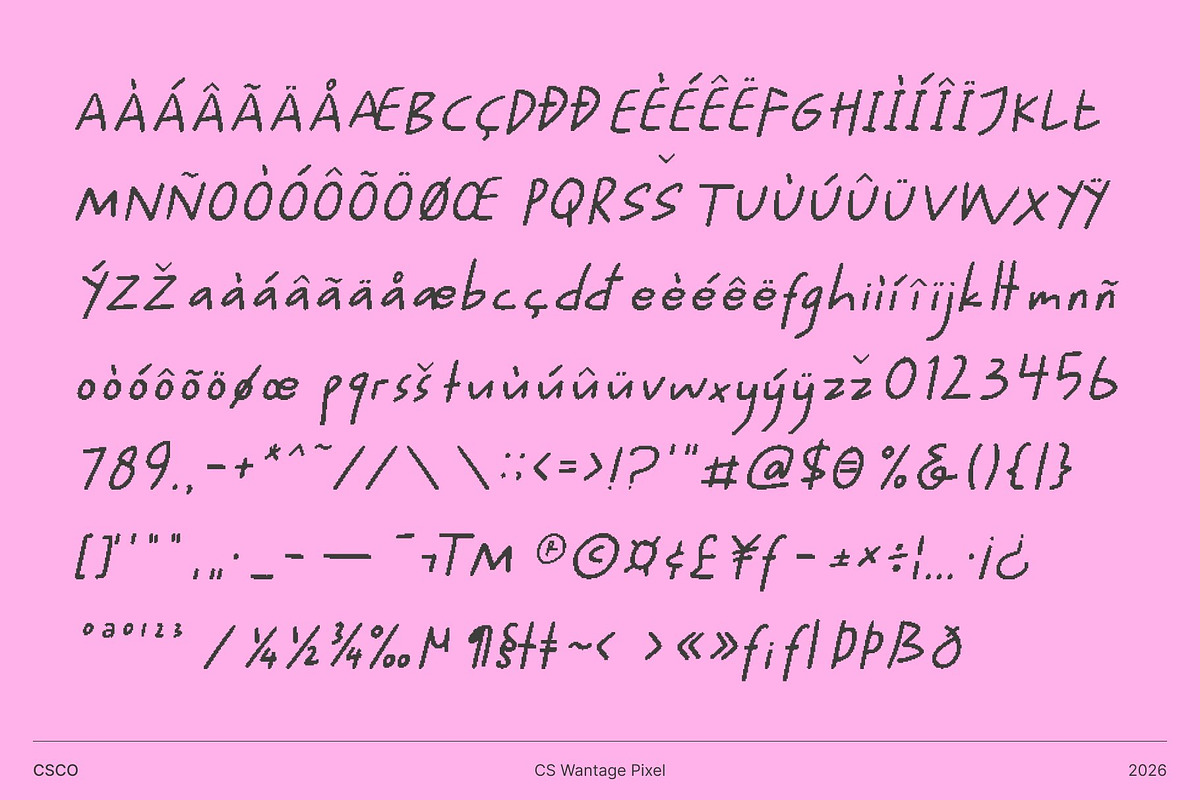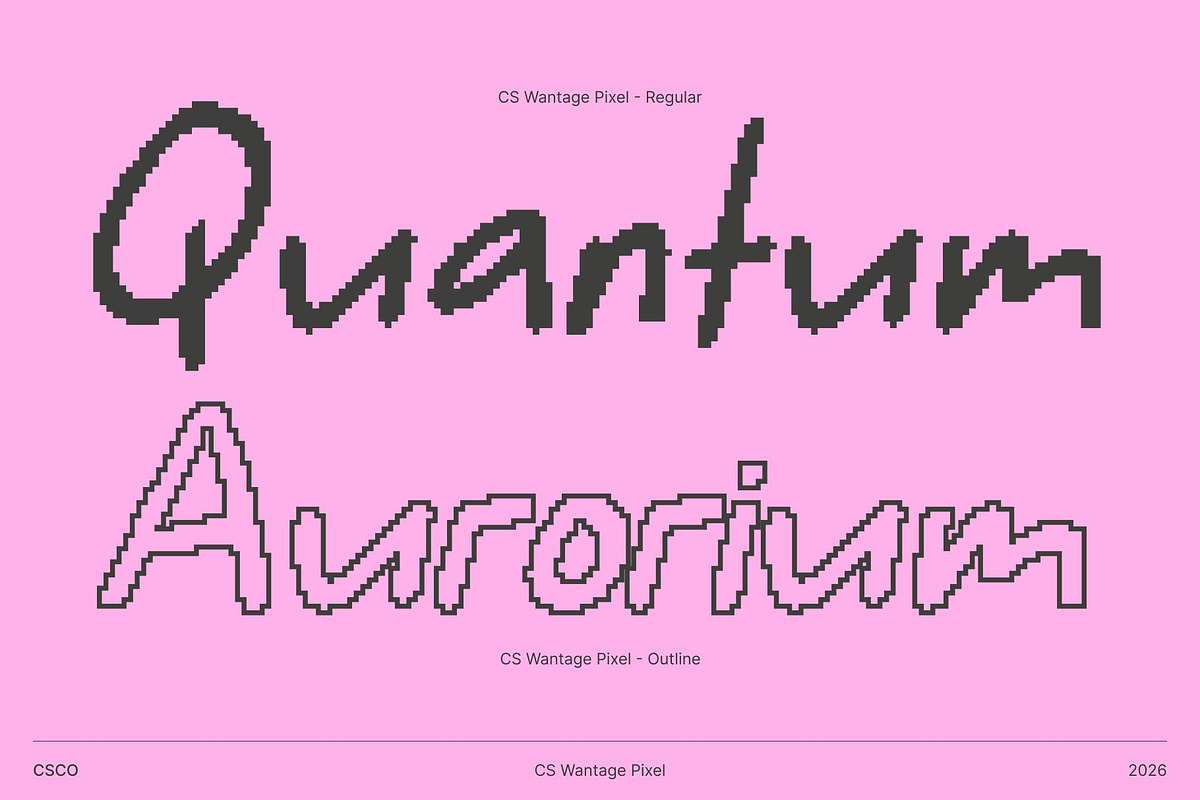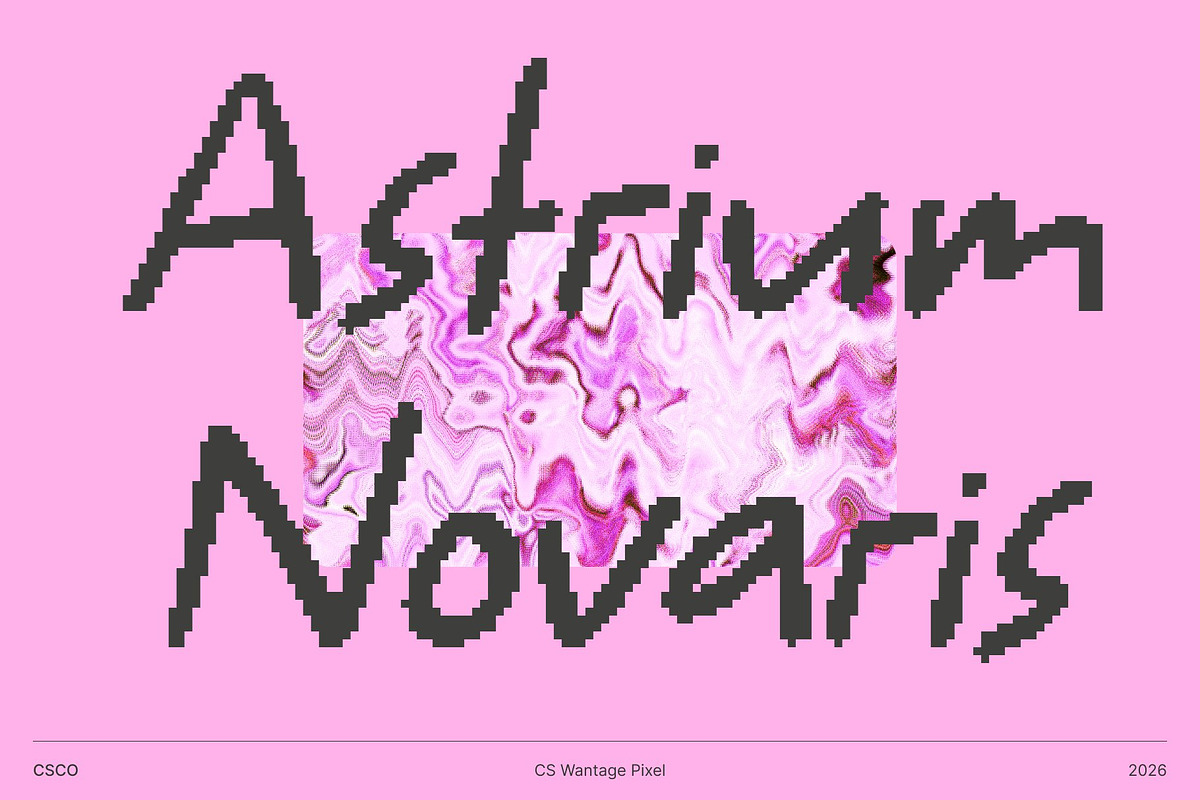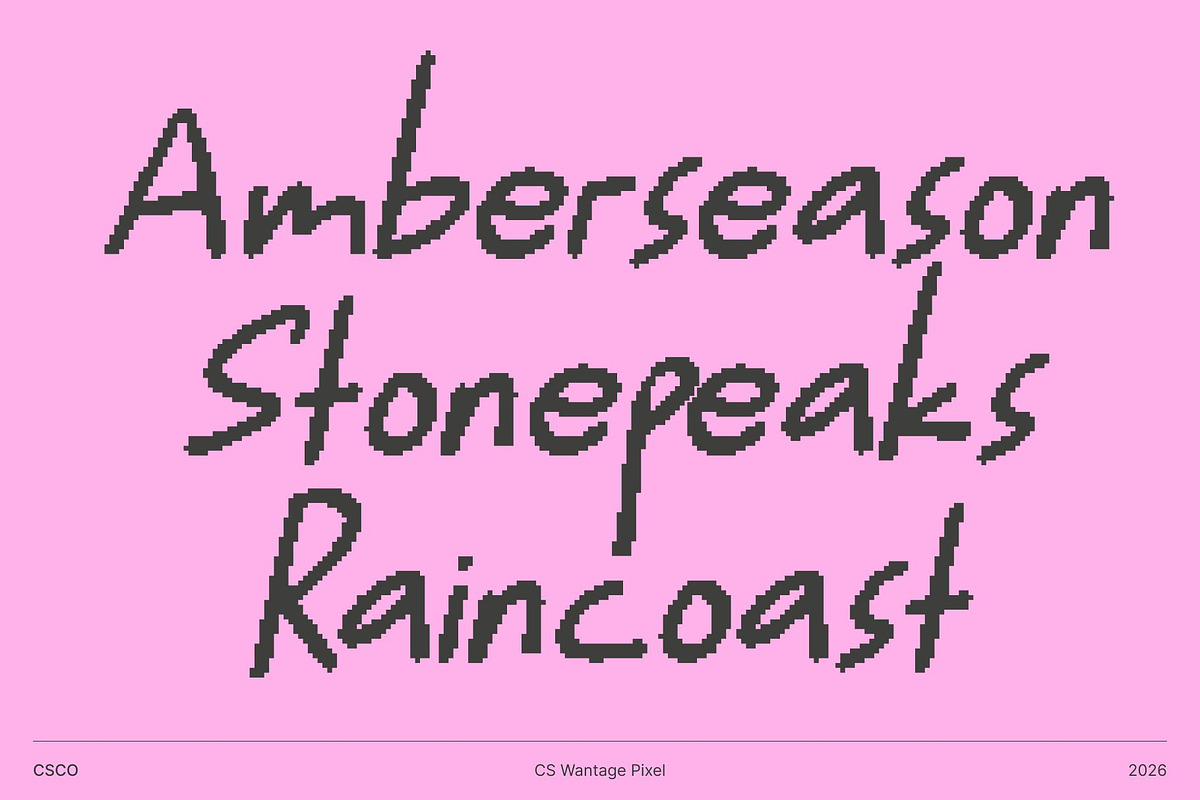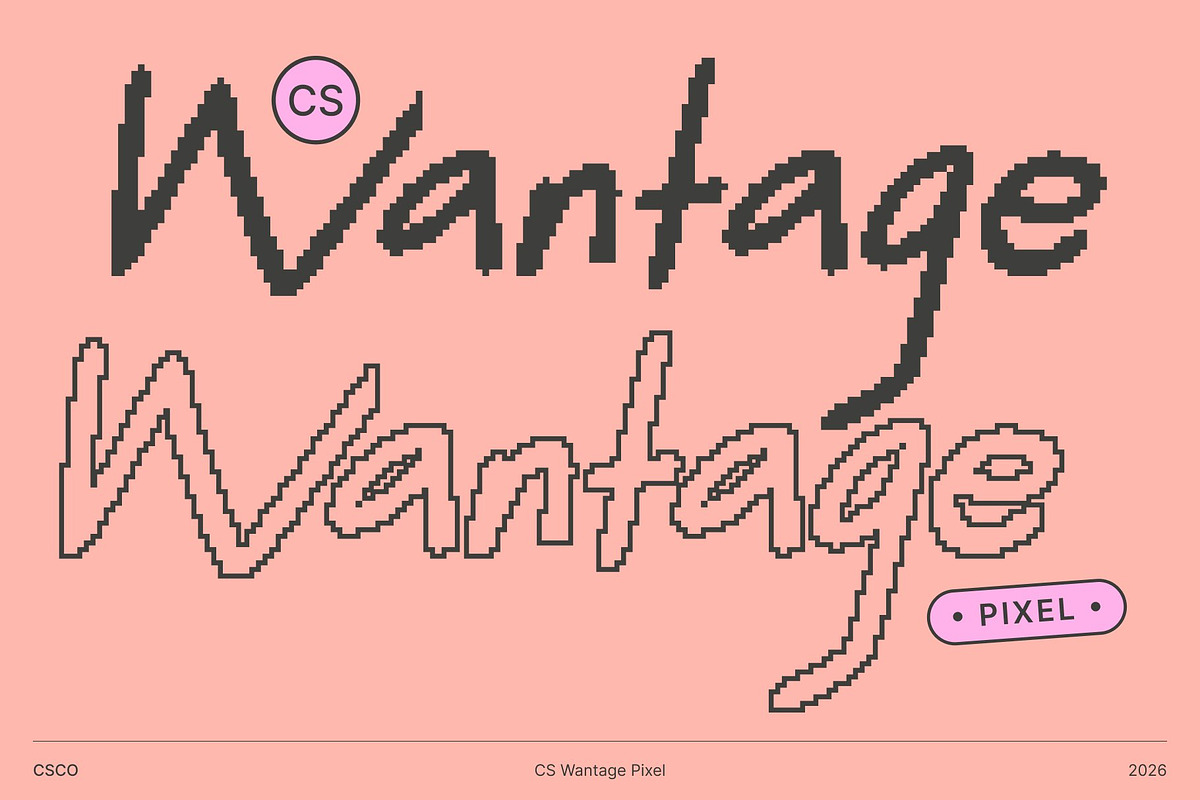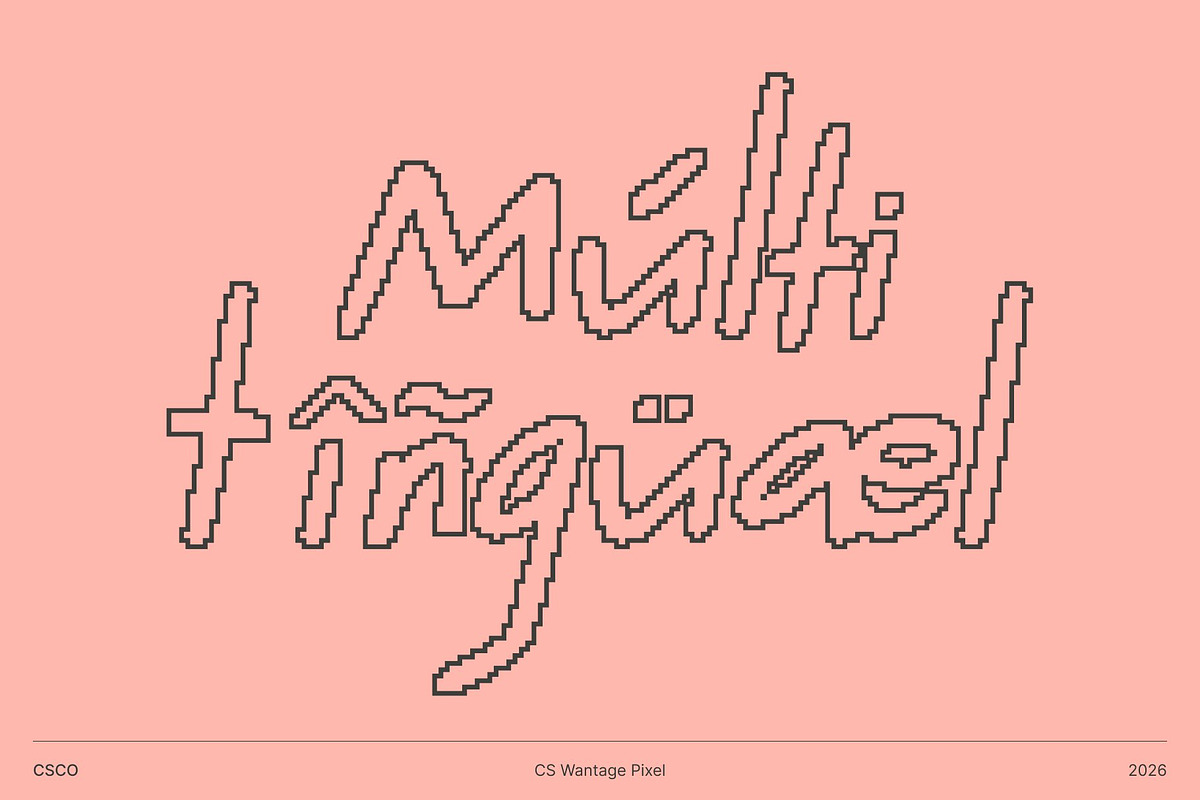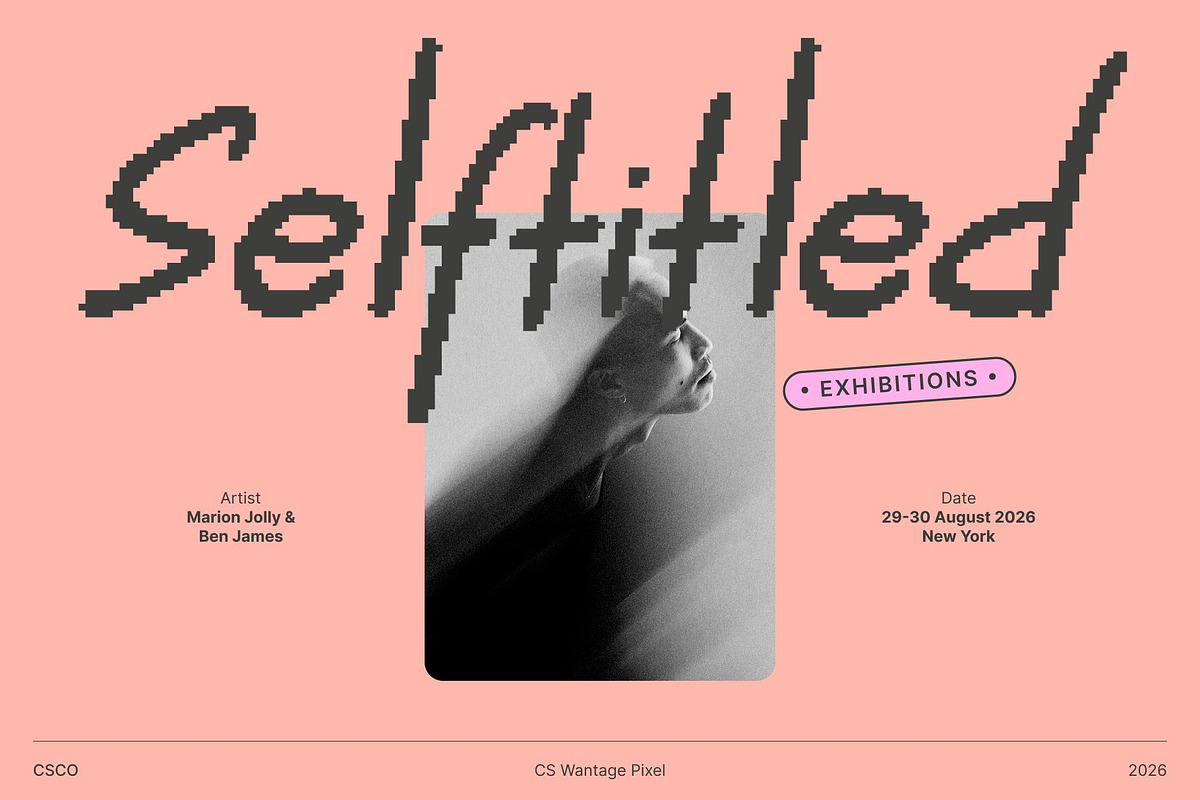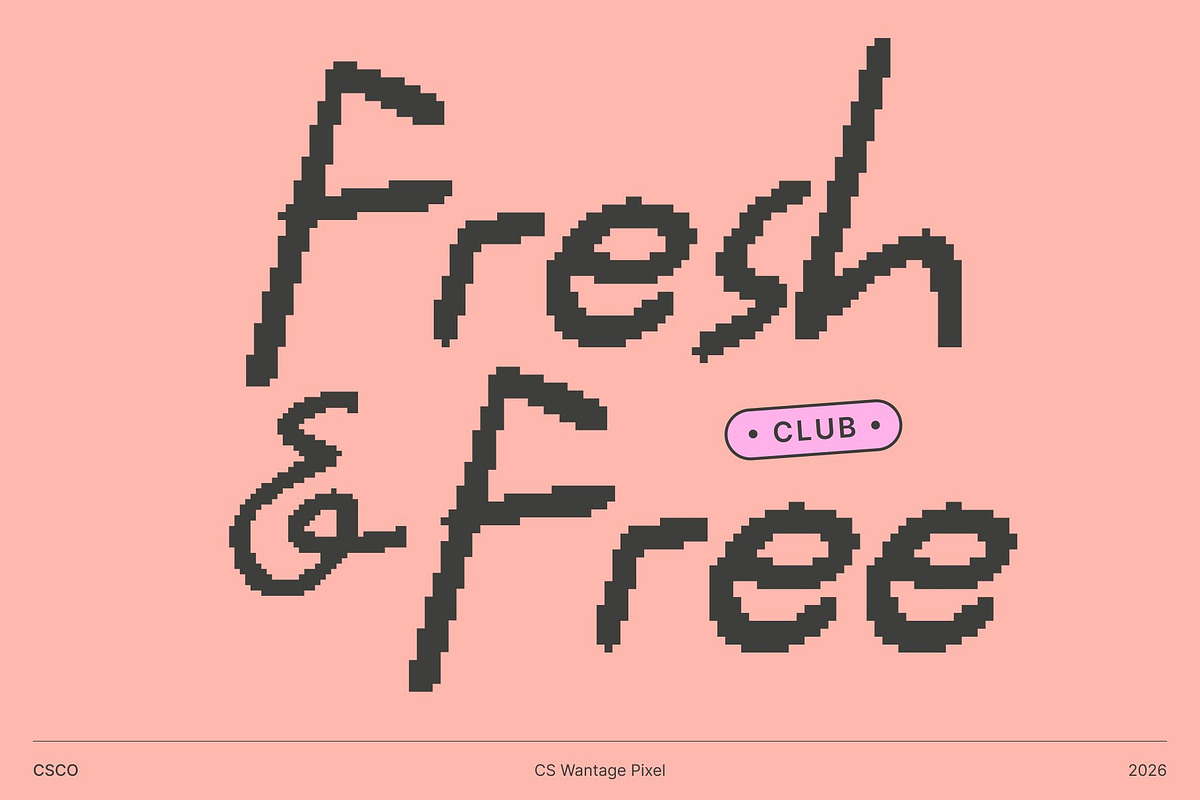
CS Wantage Pixel
CS Wantage Pixel – Fun Font with Playful Personality and Irregular Look
Playful Pixel Typography with Youthful Energy This is a lively and energetic fun font that blends cheerful irregular forms with subtle pixel-inspired detailing. Its friendly sans serif structure is infused with quirky proportions and bouncy rhythm, capturing the carefree spirit of creativity and childhood joy. The result is a typeface that feels spontaneous, expressive, and full of positive energy.
Irregular Shapes with Digital Handcrafted Charm Each letter features uneven strokes and playful pixel edges, creating a handcrafted feel with a modern digital twist. The imperfect rhythm and organic flow give the font warmth and individuality, while the pixel character adds a unique visual texture. This balance makes it feel both charmingly handmade and creatively contemporary.
Perfect for Youthful and Expressive Designs Ideal for children’s branding, educational materials, playful packaging, greeting cards, and fun event posters, this font radiates friendliness and approachability. Its dynamic shapes make text feel animated and alive, helping designs connect emotionally with audiences of all ages.
Versatile, Cheerful, and Full of Character More than just a kids’ font, this font adapts beautifully to modern playful design. From social media graphics to creative branding concepts, it delivers personality, warmth, and a joyful digital vibe. Every curve and pixel detail contributes to a lively, imaginative aesthetic that truly stands out.